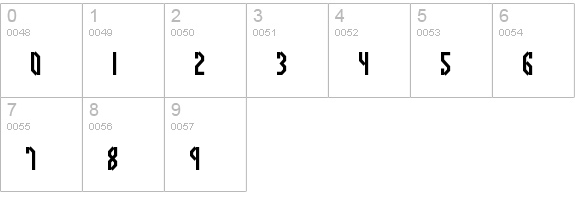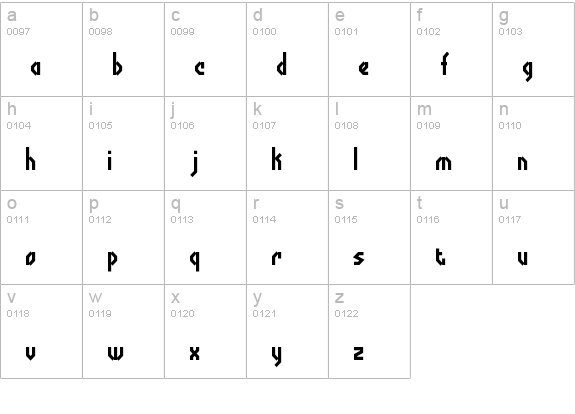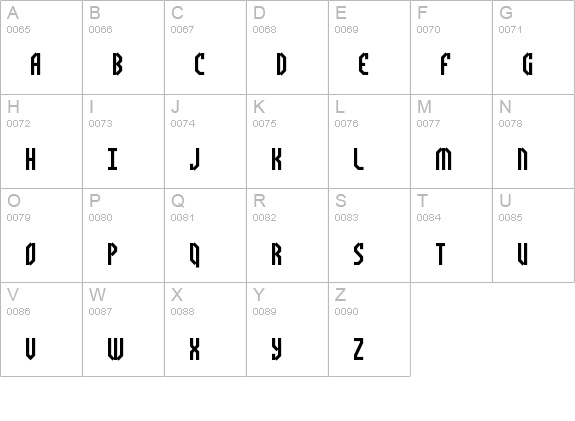
Bocuma Angle BRK Font Details
Bocuma Angle BRK font is a unique and eye-catching typeface that adds a touch of modernity and sophistication to any design project. With its sleek angles and sharp edges, this font exudes a sense of contemporary style that is perfect for logos, headlines, and branding materials. The clean lines and geometric shapes of Bocuma Angle BRK font make it versatile and suitable for a wide range of design applications. The best part? Bocuma Angle BRK font is available for free download at FontsMarket.com. This means that you can easily access this stylish font and use it in your projects without any cost. Whether you are a designer looking to add a fresh flair to your work or a business owner seeking a font that sets you apart from the competition, Bocuma Angle BRK font is the perfect choice. Download it today and elevate your designs with this modern and elegant typeface.